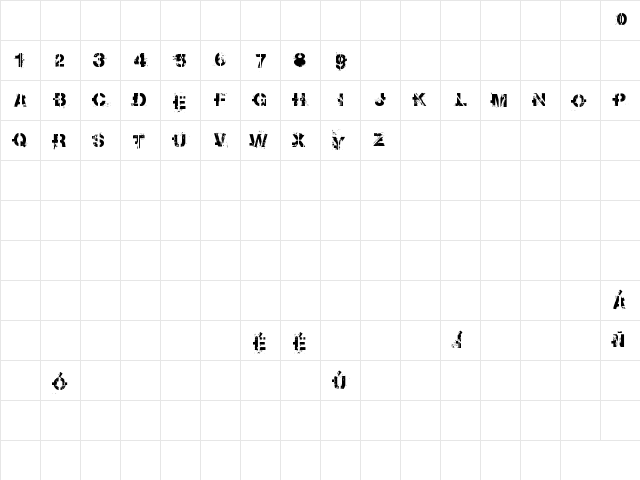
soot break Regular
Design Context for soot break
soot break is a composed and adaptable typeface that performs quietly and consistently across a wide range of design contexts.